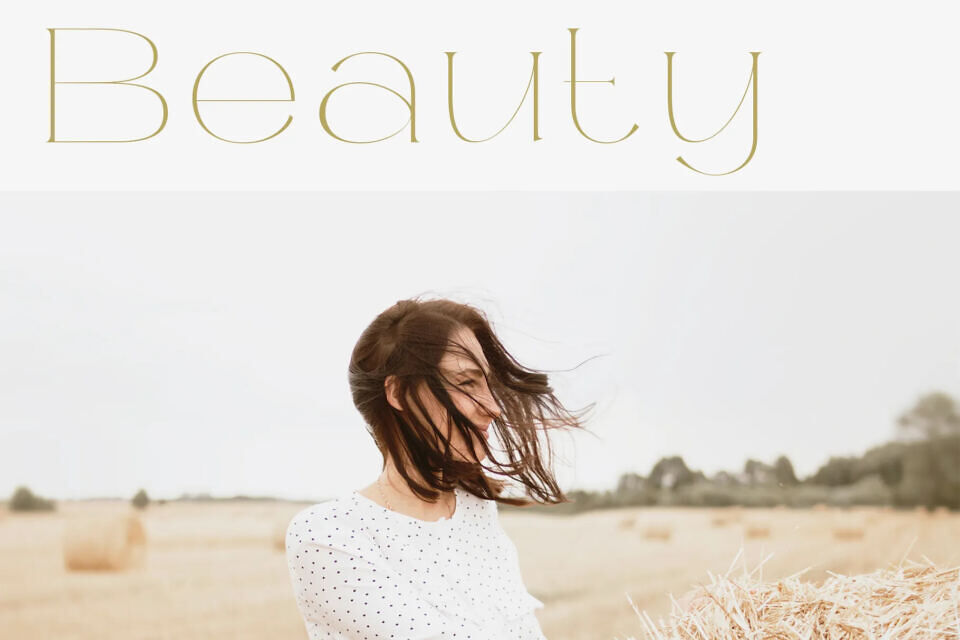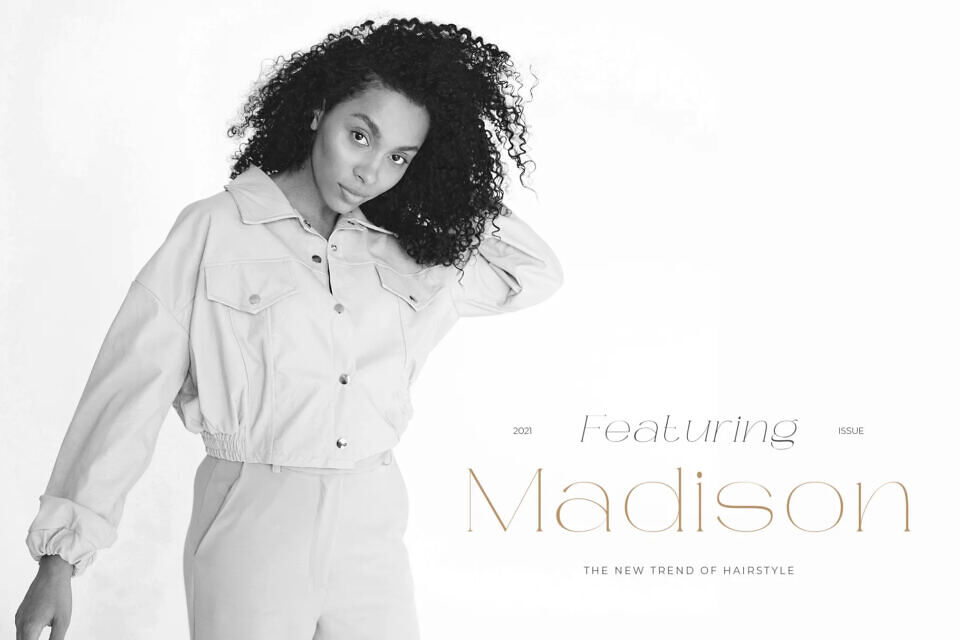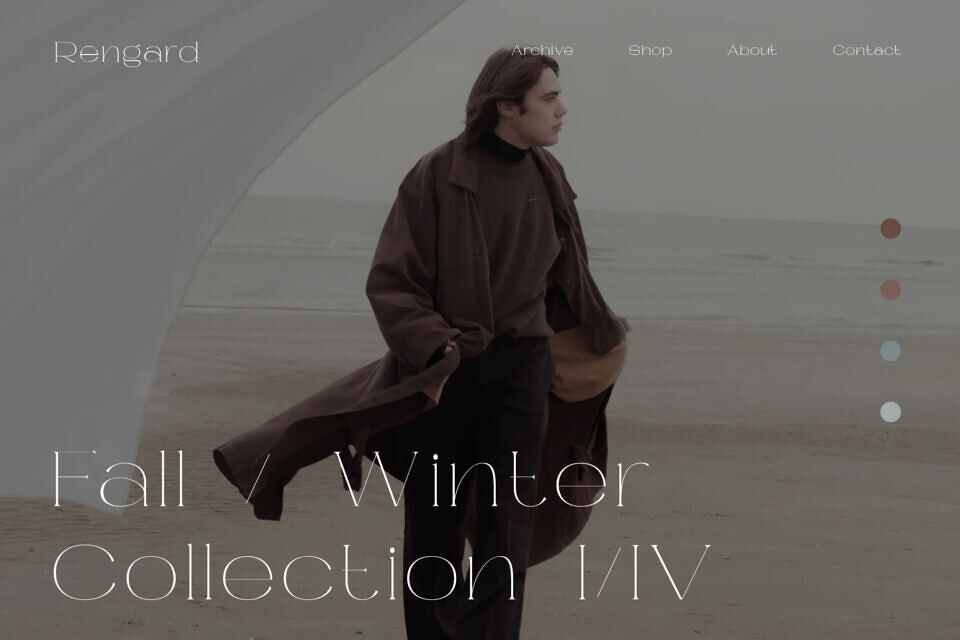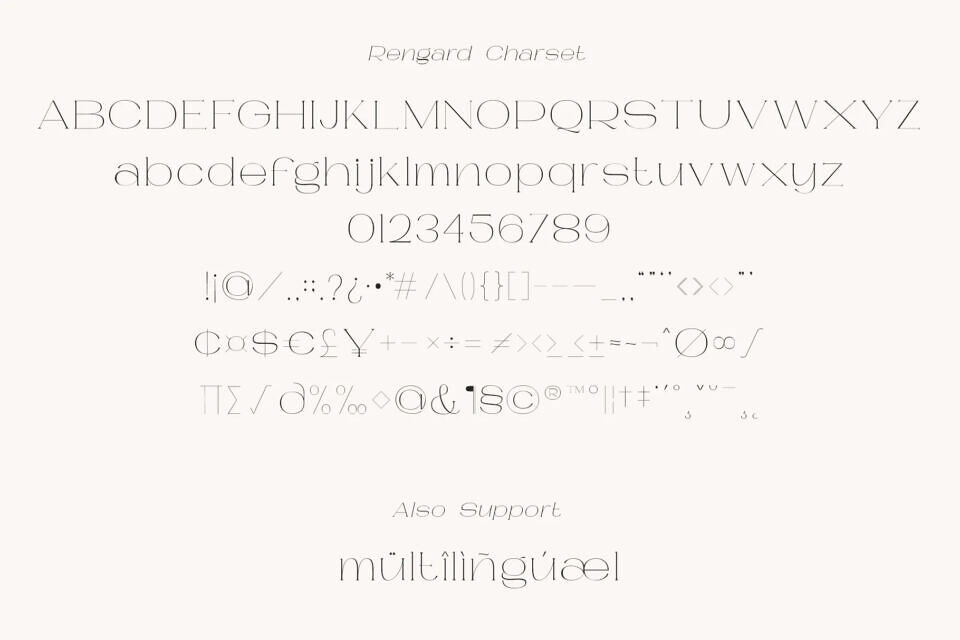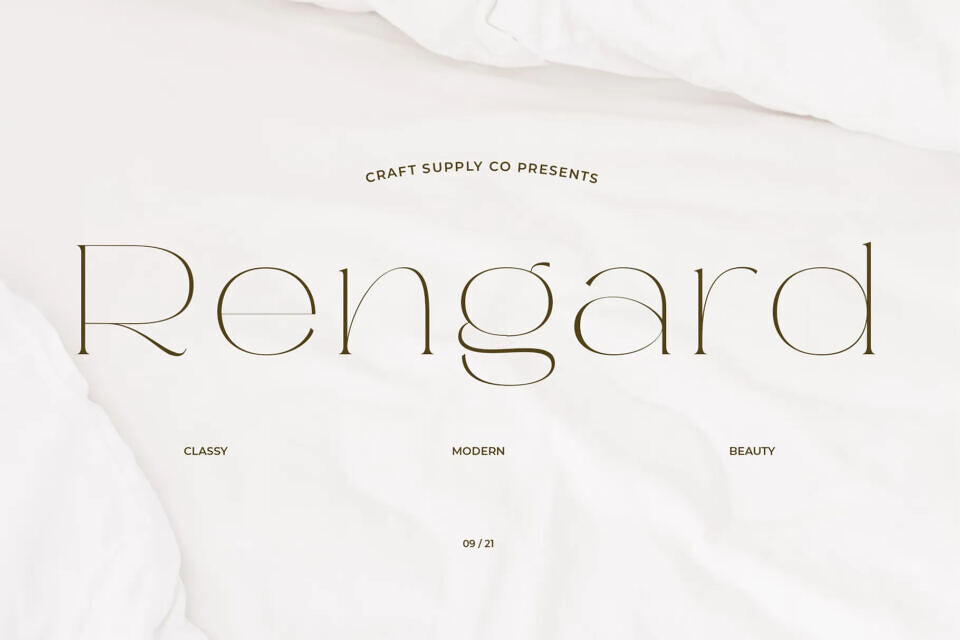
Rengard Font
Rengard is a Modern Serif Typeface consisting of a low contrast serif fonts with a classy chic and beauty look. It can be used to create almost all types of design projects like print materials. Just use your imagination and your project will become more alive and look great than ever with this typeface.
Whether you’re creating a greeting card, a package design, a brand identity, or even a book title, these fonts can add a trendy touch to any art or design project. They’re also perfect for DIY projects, wedding invitations, and retro or vintage designs. Feel free to play with them and make your art look pretty and on-trend!